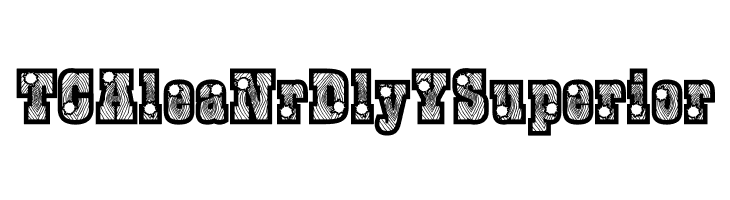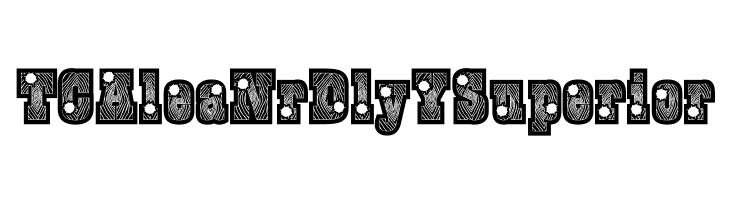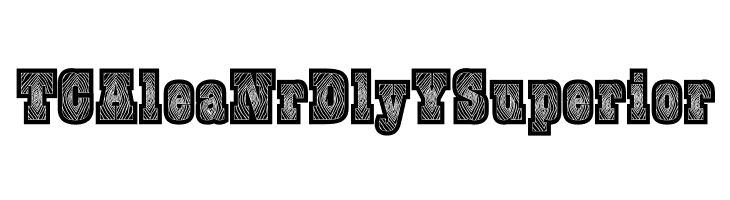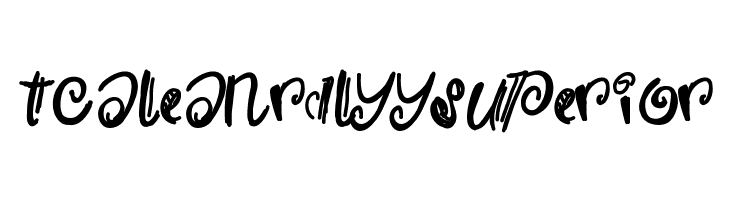
A bold, expressive handwritten font with brush-like strokes and dynamic flow.
A bold, textured, hand-painted style font with an expressive and dynamic appearance.
( Fonts by http://perso.calixo.net/~uzim/ )
A decorative, hand-drawn font with swirling, chaotic lines and varying stroke thickness.
A bold, fiery font with a dramatic burning effect.
A bold, flame-themed decorative font perfect for dramatic headlines.
A bold, geometric decorative font with playful circular accents.
( Fonts by http://perso.calixo.net/~uzim/ )
A chaotic, flame-like decorative font with swirling, jagged lines.
( Anigma New Media - www.anigma.fsnet.co.uk/an/anigma-fonts.html )
A bold, textured font with a dynamic, melting appearance.
A bold, brush-style handwritten font with dynamic and playful characters.
A bold, italicized handwritten font with a dynamic and expressive style.
( Fonts by Tim Lyle - www.rubicant.com )
A bold, jagged font with a fiery, distressed appearance.
( Fonts by Des Gomez )
A playful and whimsical font with rounded, elongated characters and quirky symbols.
An elegant, flowing script font with graceful, cursive letterforms.
A rugged, distressed font with a hand-drawn, eroded appearance.
A bold, brush-style handwritten font with dynamic strokes.
( Fonts by www.paintblackeditions.org )
A bold, distressed font with a grunge effect for impactful designs.
A bold, distressed font with a grunge, textured style.
A playful, hand-drawn font with a bold, cartoonish style and woodgrain texture.
A playful, hand-drawn font with a rustic, wood-textured style.
A bold, brush-style font with thick, expressive strokes and a hand-painted look.
( Fonts by Darrell Flood )
A bold, distressed font with a burnt, rugged texture.
A bold, rugged, hand-drawn style with uneven edges.
A bold, textured font with a distressed, edgy style.
( Fonts by Rick Mueller )
A bold, distressed font with a burnt, eroded texture.
A bold, brush-style font with dynamic and lively strokes.
( Fonts by Daniel Gauthier )
A bold, decorative font with intricate line patterns and a strong, blocky structure.
( Fonts by Daniel Gauthier )
A bold, decorative font with intricate line patterns and a striking visual style.
( Fonts by Daniel Gauthier )
A bold, decorative font with intricate patterns and a rugged, adventurous vibe.
( Fonts by Daniel Gauthier )
A bold, decorative font with intricate patterns and thick outlines.
( Fonts by Des Gomez )
A bold, playful script with a hand-drawn, whimsical style.